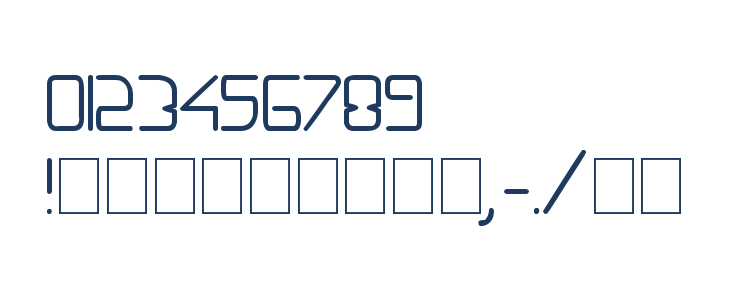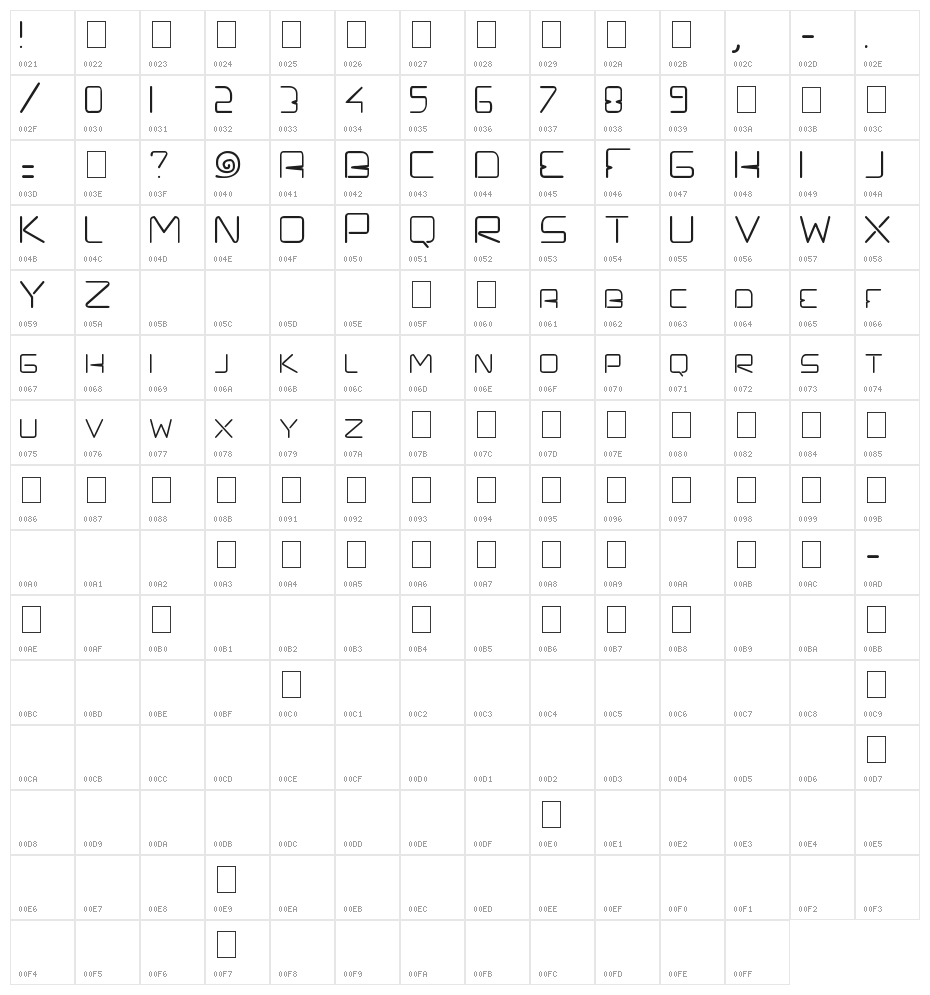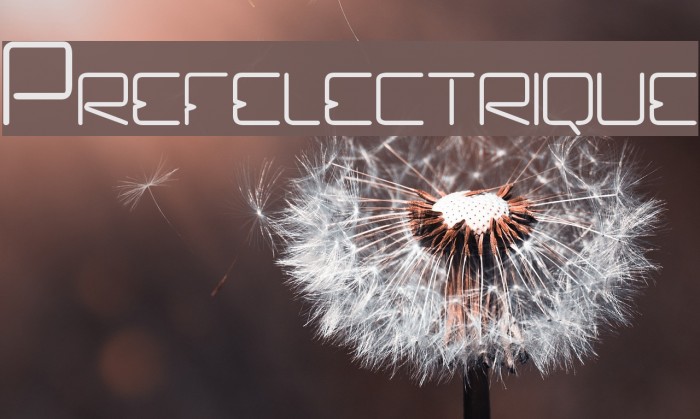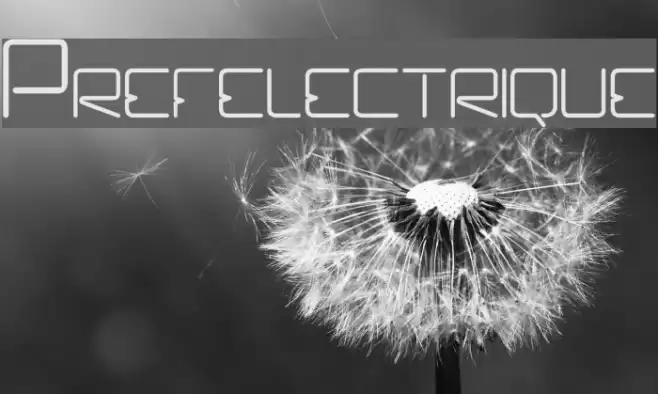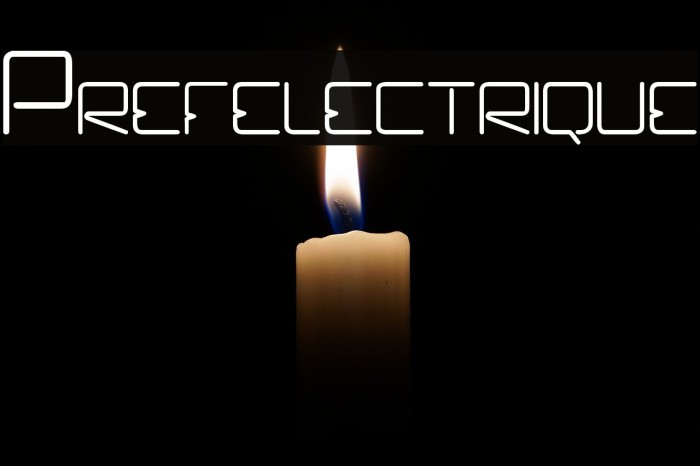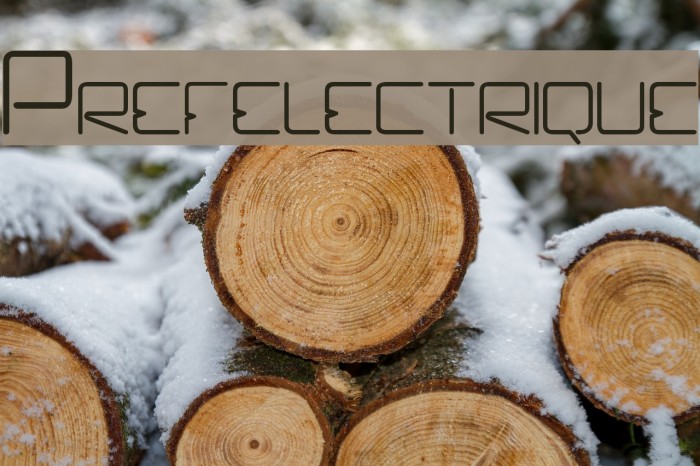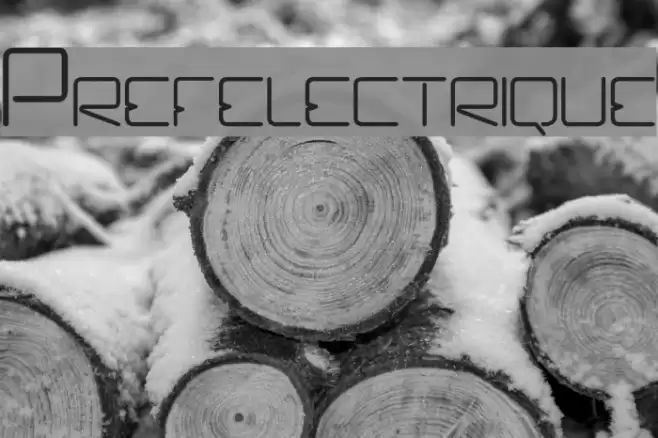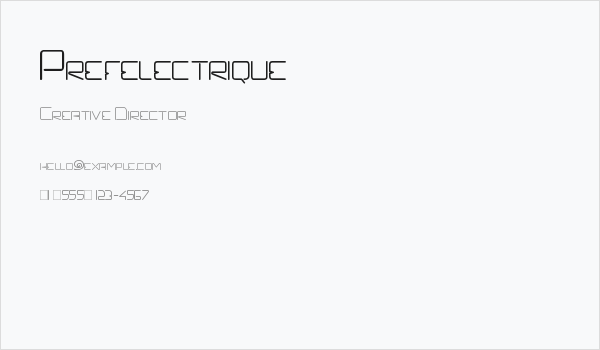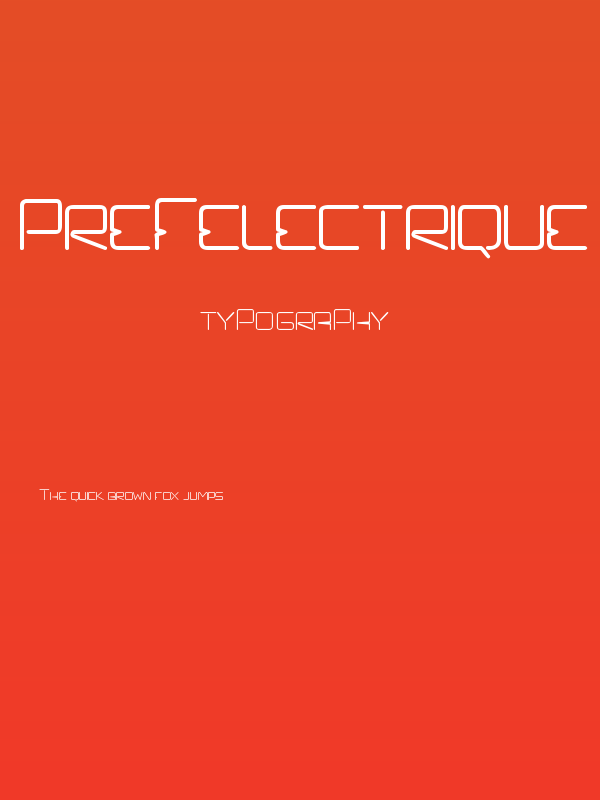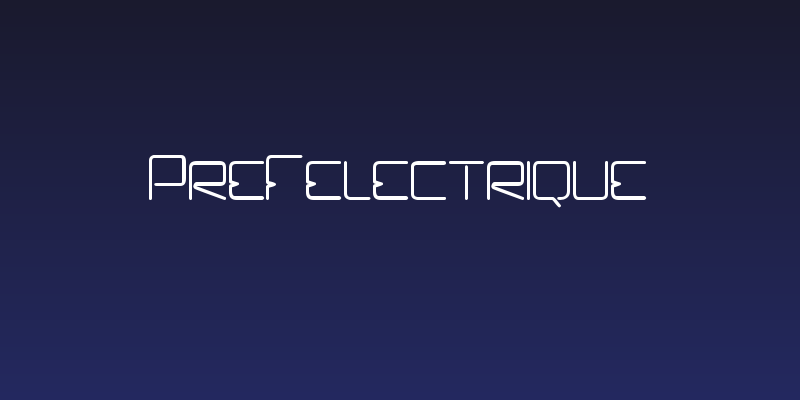
Prefelectrique Font
Prefelectrique Description
This font features a futuristic and geometric design with a distinctively modern aesthetic. The characters are composed of clean, straight lines and sharp angles, giving it a sleek and technical appearance. The uppercase and lowercase letters maintain a consistent style, with a uniform stroke width that enhances readability. The numerals are equally stylized, matching the overall theme of the font. Special characters are included, maintaining the same geometric style, which makes this font versatile for various applications.
| Proposed Projects | Ideal for technology branding, sci-fi themed projects, modern logos, and digital interfaces. |